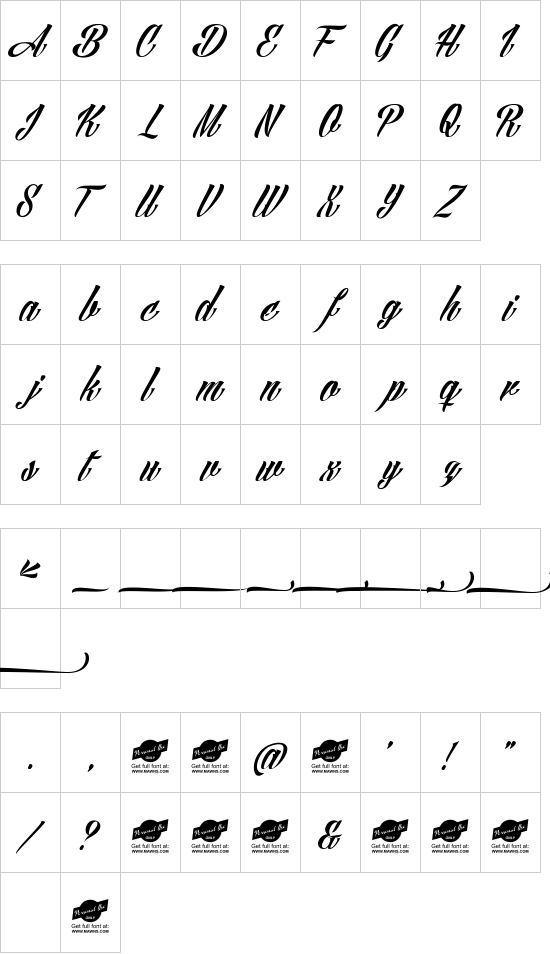
Angilla Tattoo is a classic calligraphic tattoo font with looping tails and the inked elegance of traditional body-art lettering. The strokes show clear contrast and the flourishes curl with confidence, giving each word the look of a practiced hand working with a needle or nib.
That heritage style fits tattoo flash, biker apparel, vintage signage, and bold lettering for posters and merch. Angilla Tattoo is free to download as a TrueType file, and you can preview your own lettering to see how the loops and tails fall before using it.